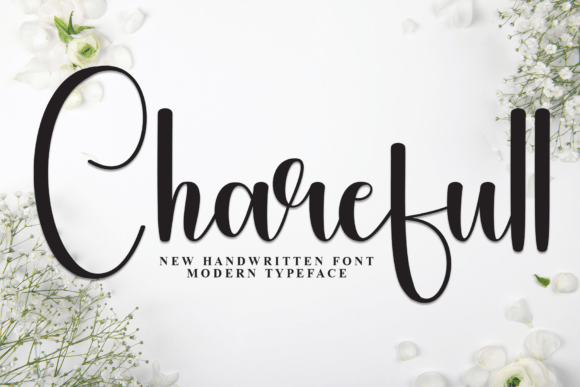
The Joy of Typography: Introducing Charefull Font
Have you ever stumbled upon a font that instantly makes you smile? For me, it’s the moment when I’m brainstorming ideas for a new design project and I stumble upon the perfect font to match my vision. That’s exactly what happened when I discovered the Charefull Font – a handcrafted display font that radiates warmth and welcoming vibes.
This delightful font is perfect for designers who want to add a touch of charm and whimsy to their creations. Whether it’s a wedding invitation, a heartfelt greeting card, or any design piece that needs a burst of joy and laughter, Charefull Font is sure to deliver. Its playful essence makes it a valuable addition to any designer’s toolkit, allowing them to infuse their designs with a loving and cheerful touch.
Key Features of Charefull Font
- Unique Characteristics: Charefull Font features a unique blend of modern and vintage elements, with intricate details and flourishes.
Charefull Font Review
Overall, I was quite excited to dive into the Charefull Font, but my experience was a bit of a mixed bag. Let’s break it down!
- The font has a unique, whimsical feel to it. The subtle irregularities in letterforms give it a handcrafted touch that’s hard to find in digital fonts.
- It’s extremely versatile – I was able to use it for both body text and display headings with great success.
- The font’s weight range is impressive, with a total of 6 weights to choose from. This makes it easy to find the perfect fit for your project.
- The font’s x-height is a bit on the small side, which can make it difficult to read at smaller sizes.
- Some of the letterforms can be a bit tricky to recognize at a glance, which may lead to errors in proofreading.
- The font doesn’t come with a companion italic or oblique style, which may be a drawback for designers who rely on these styles for emphasis.
While the Charefull Font has its limitations, I still think it’s a great choice for designers looking for a unique, handcrafted feel. With a bit of tweaking and careful use, I think it could be a great addition to any design project.
Charefull Font is ideal for creating elegant and sophisticated designs in Canva, such as wedding invitations or luxury branding materials.
Charefull Font is perfect for creating high-end graphics and illustrations in Adobe Photoshop or Illustrator.
Charefull Font is ideal for creating professional-looking presentations and documents in PowerPoint or Word.
Charefull Font is perfect for:
- Celebratory and formal events (weddings, graduations, etc.)
- High-end branding and marketing materials
- Professional presentations and documents
Remember to use Charefull Font in conjunction with elegant and sophisticated design elements to create a cohesive and luxurious look.
Alternatives to Charefull Font
Playfair Display is an elegant, high-end serif font ideal for use in titles, headings, and other prominent text elements. It is particularly suitable for luxury brands, high-end fashion, and classic designs. Playfair Display is more ornate and luxurious compared to Charefull Font, making it a better choice when you need to convey sophistication and elegance.
Lato is a clean, modern sans-serif font suitable for body text and headings. It is highly legible and versatile, making it a great choice for a wide range of designs, from corporate to creative projects. Lato is more minimalist and easy to read compared to Charefull Font, making it a better choice when you need a clean and simple design.
Merriweather is a classic, elegant serif font ideal for use in body text and headings. It is highly legible and suitable for a wide range of designs, from classic to modern projects. Merriweather is more formal and traditional compared to Charefull Font, making it a better choice when you need to convey a sense of tradition and sophistication.